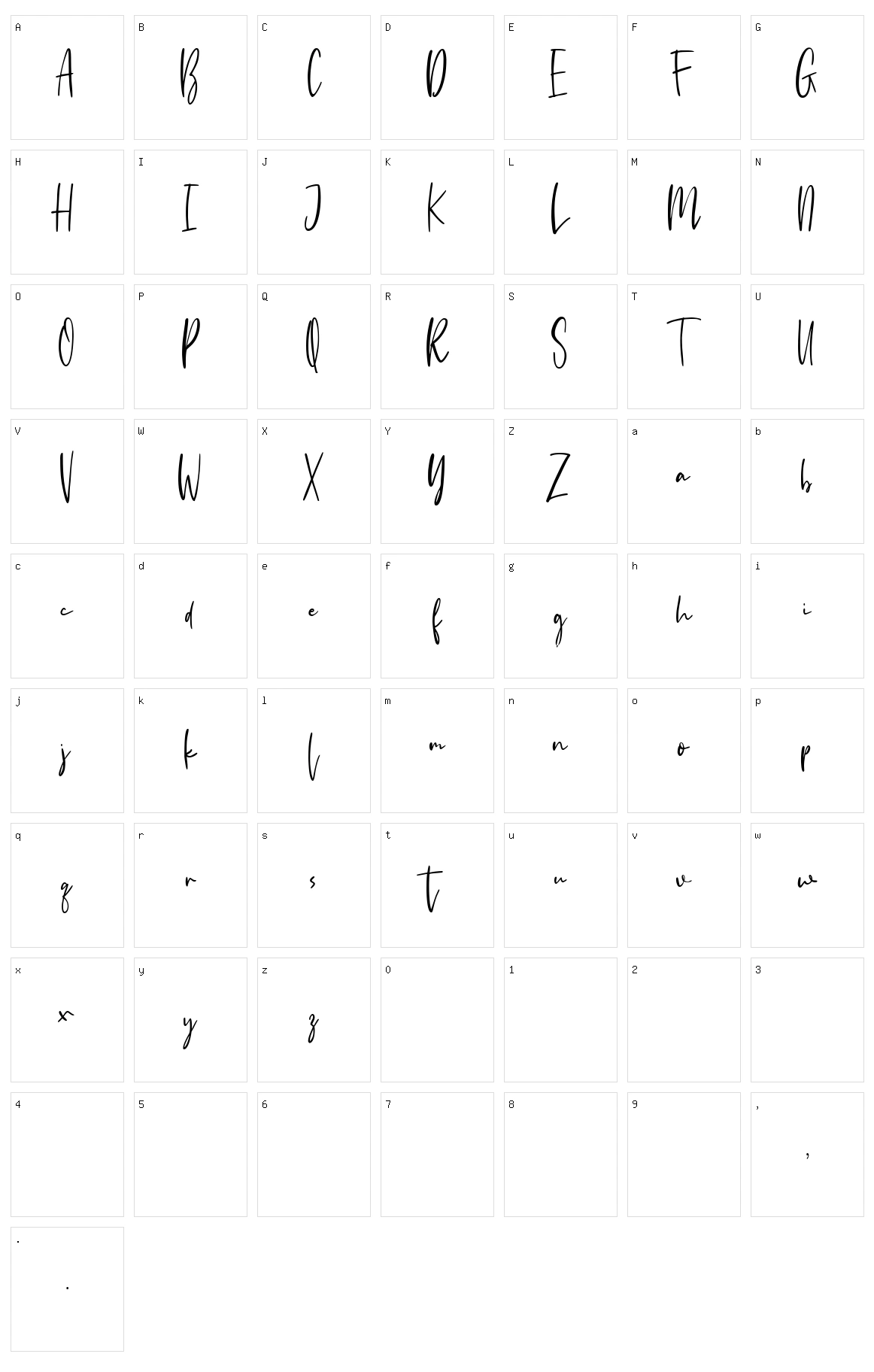
The free font Moonlight In Tokyo is carefully designed by epiclinez, showcasing a thoughtful balance of creativity and usability and falls under the Script font style. When you download the ZIP file, it contains only 26.17 KB of font files, making it lightweight and quick to download. Please review the license details below to understand permitted usage and distribution rights. If license information is not available, we recommend using this font for personal projects only or contacting the author directly for commercial usage permissions.